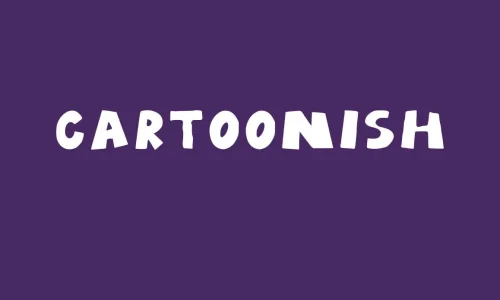
Lets we are presenting the very wonderful typeface that is known as Valorant Font. The designer of this beautiful font is Bryan T. This typeface is a member of the display font family.
This typeface has included special Letters that arrive with rounded shapes and little decorations it is the best choice for batman font for your field projects.